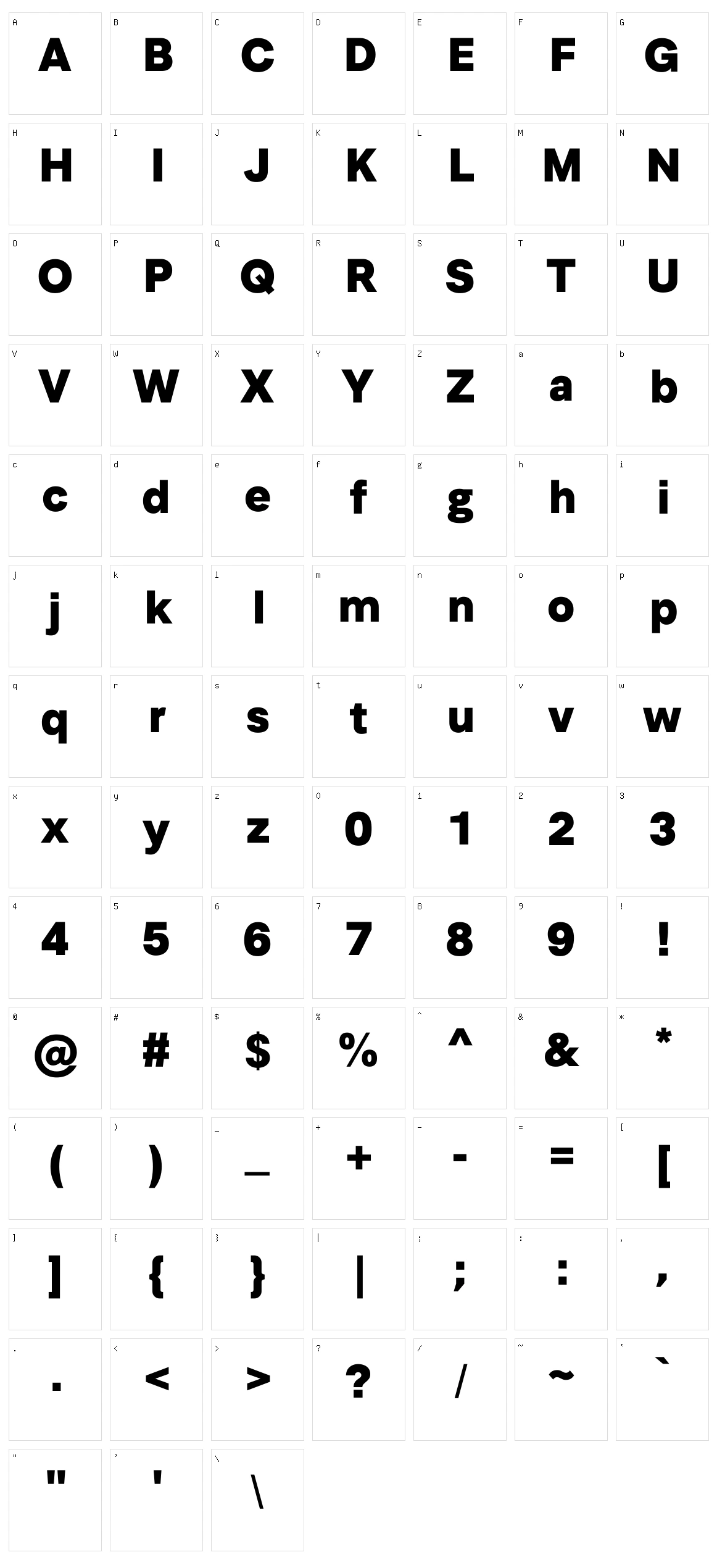
The free font Genera Grotesk is carefully designed by Wahyu & Sani Co., showcasing a thoughtful balance of creativity and usability and falls under the Sans serif font style. When you download the ZIP file, it contains only 27.85 KB of font files, making it lightweight and quick to download. Please review the license details below to understand permitted usage and distribution rights. If license information is not available, we recommend using this font for personal projects only or contacting the author directly for commercial usage permissions.